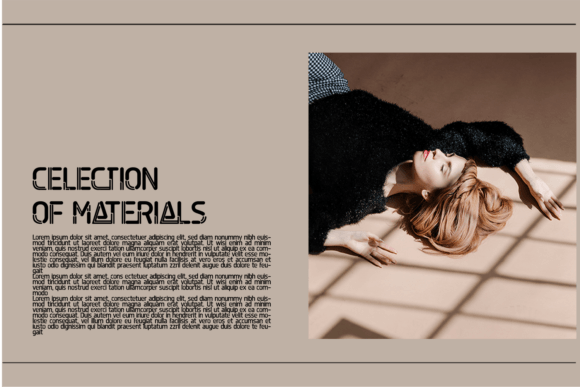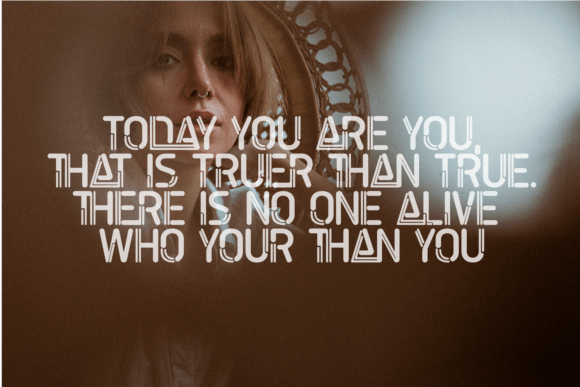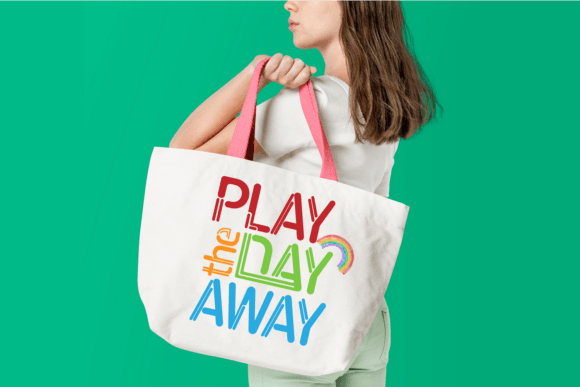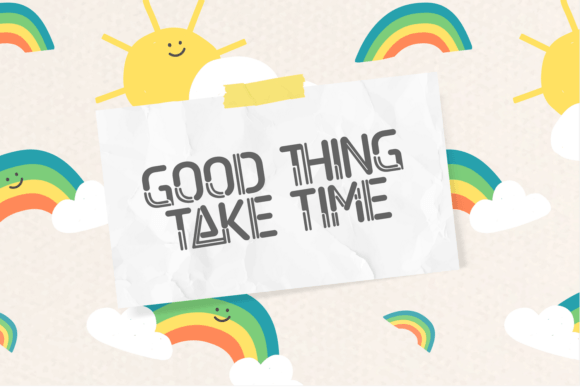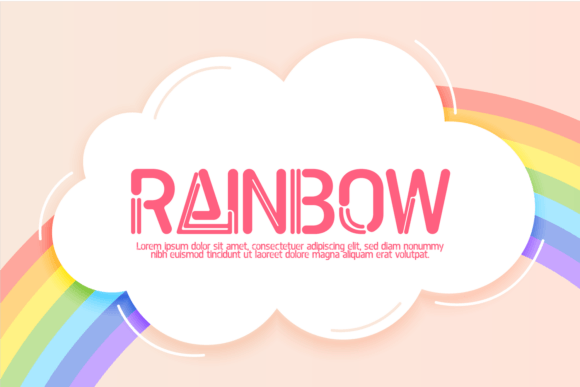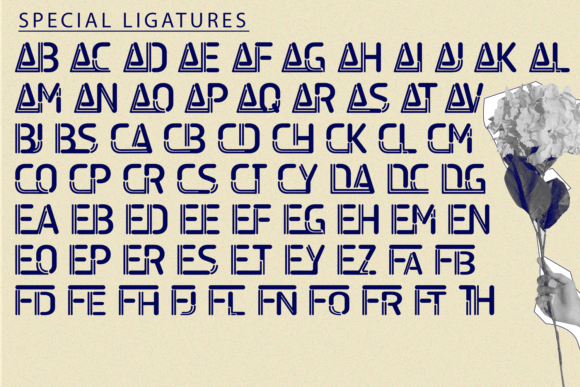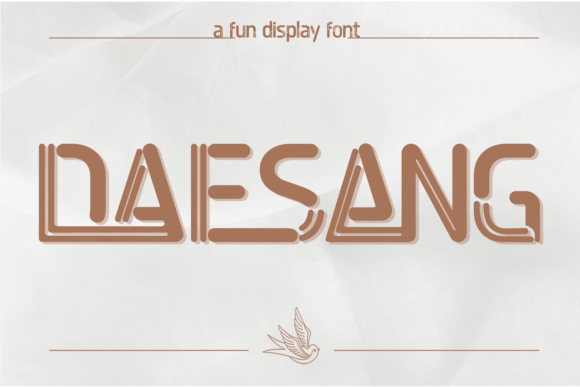
Introducing Daesang Space Font: The Ultimate Futuristic Font for Modern Design
In the world of design, fonts play a crucial role in conveying the message and aesthetic of a project. With the ever-evolving landscape of design trends, it’s essential to stay ahead of the curve with fresh and innovative typography. This is where Daesang Space Font comes in – a game-changing, futuristic font that’s perfect for designers and crafters looking to elevate their projects.
What is Daesang Space Font?
Daesang Space Font is a cutting-edge, space-inspired font that’s designed to make a statement. Its thin and simple strokes, combined with unique cuts, give it a strong and significant presence. This font is perfect for those who want to add a touch of futurism and sophistication to their designs. Whether you’re working on a logo branding project, editorial design, or a modern advertising campaign, Daesang Space Font is the ideal choice.
Key Features of Daesang Space Font
- Futuristic and Space-Inspired: Daesang Space Font boasts a futuristic and space-inspired design that’s perfect for projects that require a modern and edgy look.
- Thin and Simple Strokes: The font’s thin and simple strokes give it a clean and minimalist aesthetic that’s perfect for designs that require a subtle yet impactful typography.
- Unique Cuts: The unique cuts in Daesang Space Font add a touch of sophistication and elegance, making it perfect for high-end designs.
- Rustic and Minimal: Despite its futuristic design, Daesang Space Font has a rustic and minimal feel that makes it perfect for designs that require a balance of modernity and earthiness.
- Printing-Pressed: Daesang Space Font is designed to mimic the look of printing-pressed fonts, giving it a tactile and premium feel.
Use Cases for Daesang Space Font
Daesang Space Font is a versatile font that can be used in a variety of projects, including:
- Logo Branding: Create a lasting impression with Daesang Space Font’s unique and futuristic design.
- Editorial Design: Add a touch of sophistication to your editorial designs with Daesang Space Font’s clean and minimalist aesthetic.
- Sport Design: Give your sport designs a modern and edgy look with Daesang Space Font’s bold and futuristic design.
- Game and Gaming Industry: Create a immersive experience for gamers with Daesang Space Font’s futuristic and space-inspired design.
- Music Cover and Poster: Add a touch of elegance and sophistication to your music covers and posters with Daesang Space Font.
- Website Design: Elevate your website design with Daesang Space Font’s modern and clean aesthetic.
- Modern Advertising Design: Create eye-catching ads with Daesang Space Font’s bold and futuristic design.
- Modern Poster Quote: Add a touch of inspiration and motivation to your posters with Daesang Space Font’s clean and minimalist design.
- Book and Magazine Cover Title: Give your book and magazine covers a premium and sophisticated look with Daesang Space Font.
- Special Events: Create a lasting impression with Daesang Space Font’s unique and futuristic design for special events.
Why Choose Daesang Space Font?
Daesang Space Font is the perfect choice for designers and crafters who want to elevate their projects with a modern and futuristic typography. Its unique design, versatility, and wide range of use cases make it an ideal font for various projects. With Daesang Space Font, you can:
- Stand Out: Create designs that stand out from the crowd with Daesang Space Font’s bold and futuristic design.
- Convey Innovation: Convey a sense of innovation and modernity with Daesang Space Font’s clean and minimalist aesthetic.
- Evoke Emotion: Evoke emotions and create a lasting impression with Daesang Space Font’s unique and sophisticated design.
In conclusion, Daesang Space Font is a game-changing, futuristic font that’s perfect for designers and crafters looking to elevate their projects. Its unique design, versatility, and wide range of use cases make it an ideal font for various projects. Whether you’re working on a logo branding project, editorial design, or a modern advertising campaign, Daesang Space Font is the perfect choice. So why wait? Download Daesang Space Font today and take your designs to the next level!